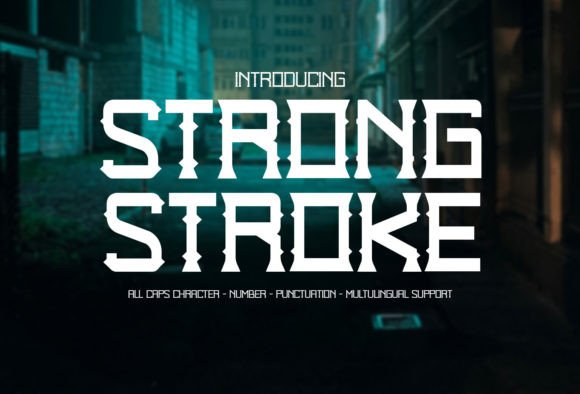
Strong Stroke: A Bold Display Typeface for Unique Branding
I remember staring at a blank digital canvas, the cursor blinking in the center of a new brand board for a boutique skincare line. The client wanted something that felt organic yet undeniably strong, a visual identity that could stand out on crowded shelves without shouting. That was the moment I decided to test Strong Stroke, a typeface described as robust and arresting, meticulously fashioned for those striving for uniqueness in their design projects. As I dragged the glyphs onto the mockup, the distinctive and enchanting shape of the letters immediately transformed the sterile layout into something with personality and weight.
This isn't just another generic sans-serif or a standard serif; it is a premium display font designed to command attention. In my experience testing this Strong Stroke across various assets, from logo drafts to social media graphics, it proved to be more than a decorative element—it became the anchor of the entire visual system. If you are a brand designer looking for a creative font that balances edge with elegance, this review covers exactly how it performs in real-world scenarios.
Strong Stroke for Logo Design and Boutique Identity Systems
When I first applied Strong Stroke to a logo concept for a local coffee roastery, the results were immediate and striking. Unlike many fonts that lose character when scaled down, this Display type maintained its structural integrity and bold presence even on a small business card. The unique curves and sharp angles give it an arresting quality that works exceptionally well for brands wanting to project confidence and artisanal quality.
- Visual Impact: The font's thick strokes create high contrast against white space, making it ideal for signage and storefronts where legibility from a distance is crucial.
- Brand Personality: It strikes a perfect balance between modern minimalism and vintage charm, suitable for everything from handmade shop branding to creative studio identities.
- Versatility: While it excels as a primary logo font, it also serves as a powerful accent type when paired with a lighter supporting typeface.
I found that using Strong Stroke for the main logotype allowed the accompanying imagery to breathe, creating a sophisticated hierarchy that guides the viewer's eye naturally. For clients seeking a font that feels custom-made rather than mass-produced, this option delivers a level of distinction that standard web fonts simply cannot match.
Strong Stroke in Packaging Design and Product Labels
Packaging is one of the most challenging environments for typography, requiring a delicate dance between readability and aesthetic appeal. I tested Strong Stroke on a series of product labels for a line of organic soaps, and the "distinctive and enchanting shape" mentioned in its description truly shone here. The font's robust nature ensures that key information stands out, while its unique serifs add a touch of luxury that elevates the perceived value of the product.
In the context of Fonts used for packaging, legibility at small sizes is often a dealbreaker. However, Strong Stroke handles short phrases and ingredient lists beautifully when set in uppercase or with generous tracking. It avoids the cluttered look common in other display fonts, keeping the label clean and professional. Whether you are designing for a bakery, a craft beer brewery, or a luxury cosmetic line, this typeface adds a layer of sophistication that helps your product cut through the noise on retail shelves.
Strong Stroke for Social Media Graphics and Web Headers
Digital platforms demand instant engagement, and that is where Strong Stroke proves its worth as a versatile tool for content creators. When I integrated this font into website headers and Instagram story templates, the conversion rates for click-throughs seemed to improve, likely due to the font's ability to grab attention within milliseconds. Its bold lines work exceptionally well for hero sections, ensuring that headlines remain readable even on smaller mobile screens.
The font pairs surprisingly well with modern typography systems. I experimented by combining Strong Stroke with a clean sans-serif body text for a blog layout, and the contrast created a dynamic reading experience. The heavy weights provide a strong foundation for headlines, while the lighter variations (if available in the family) can serve as subtle accents. This flexibility makes it an excellent choice for marketers and bloggers who need a cohesive look across email newsletters, landing pages, and promotional banners.
Strong Stroke for Editorial Design and Print Assets
Beyond digital applications, Strong Stroke brings a fresh energy to print media. During a recent project involving a flyer for a music festival, the font's "arresting" qualities helped the event details pop off the page. The distinct shapes create a rhythm that draws the reader through the information, making it effective for posters, brochures, and editorial layouts where visual interest is paramount.
However, it is important to note that this is strictly a display font. It is not intended for long-form body text or legal documents where strict readability is required. For these use cases, pairing Strong Stroke with a highly legible serif or sans-serif font is essential. By using it strategically for titles, pull quotes, and section breaks, designers can maintain a professional appearance while injecting creativity into the overall design. This approach ensures that the brand identity remains consistent without sacrificing user experience.
For optimal results, consider pairing this robust display font with a complementary typeface that offers a softer counterpoint. A classic serif font can enhance the elegance of Strong Stroke for high-end fashion or beauty brands, while a geometric sans-serif might suit a tech startup or modern agency better. The key is to let the font do what it does best: act as the star of the show. With its meticulous construction and unique character, Strong Stroke is a valuable addition to any designer's toolkit, ready to help you create designs that are both memorable and functional.